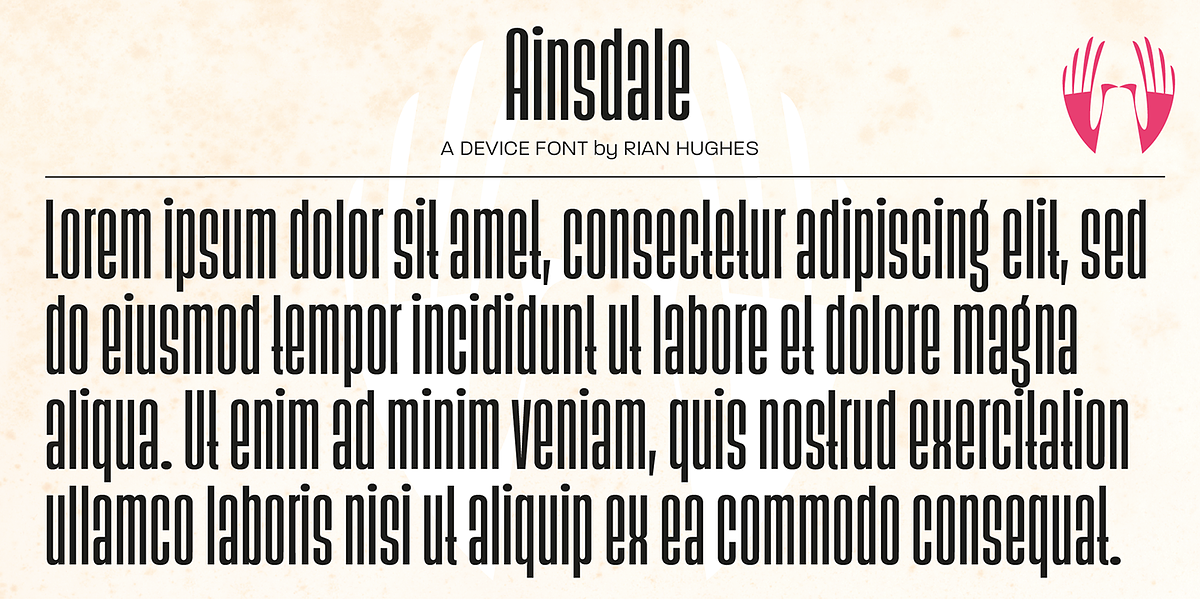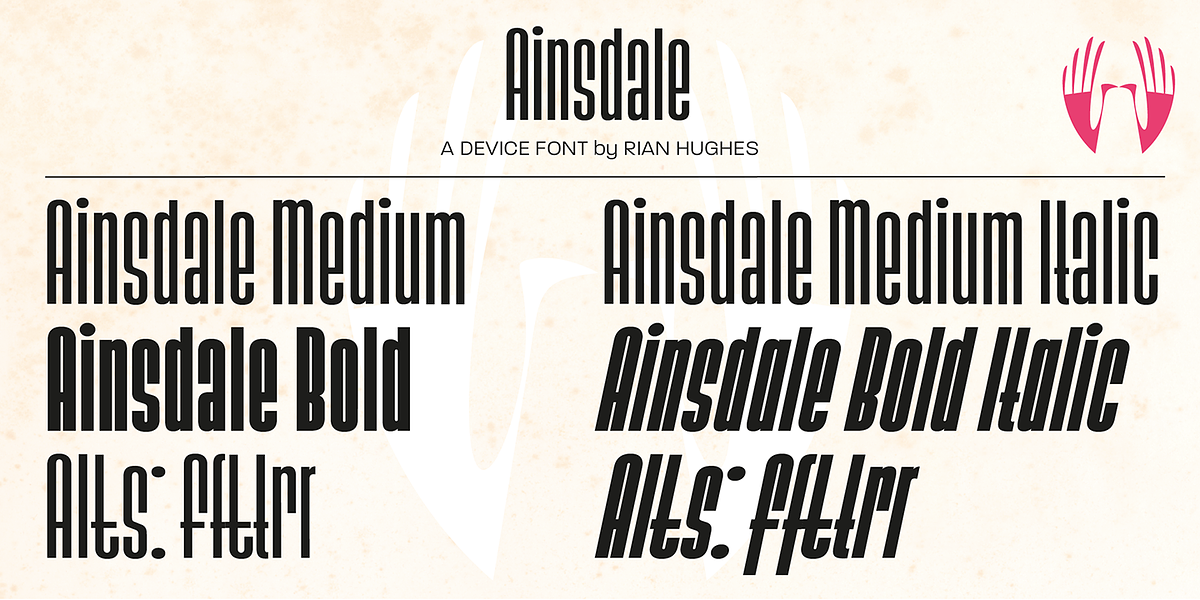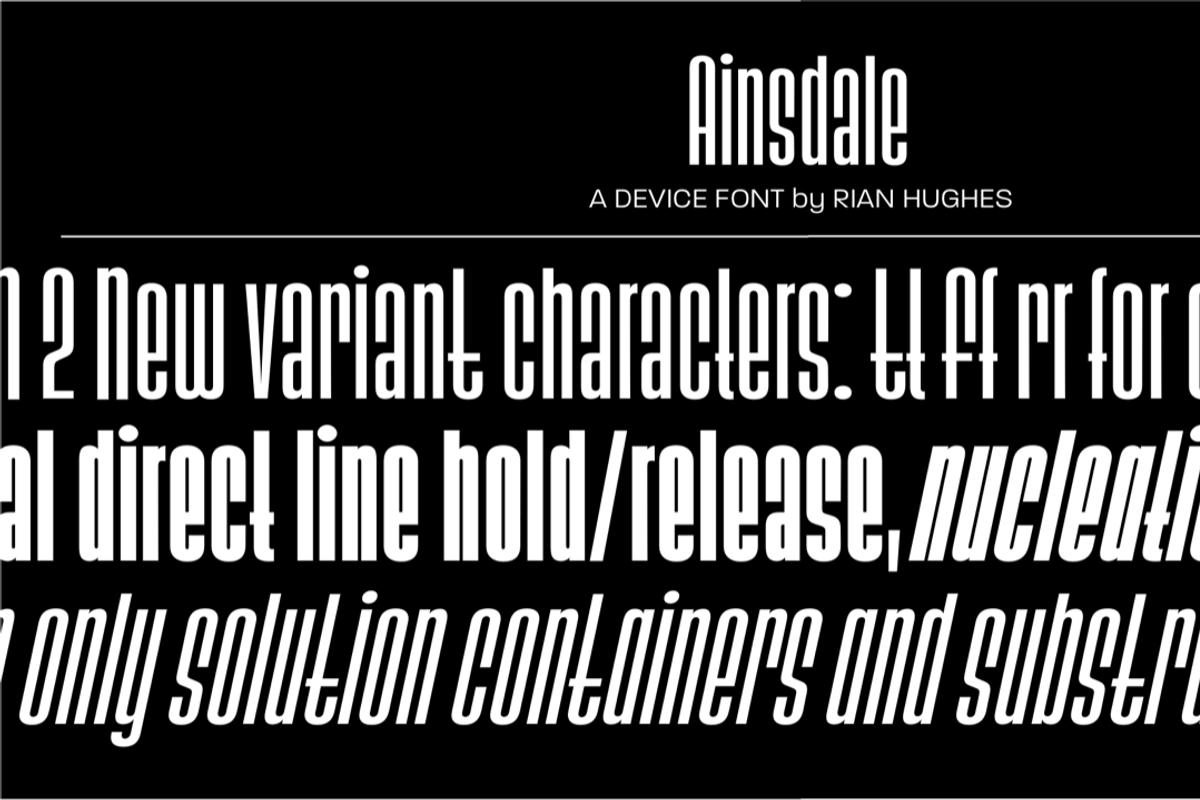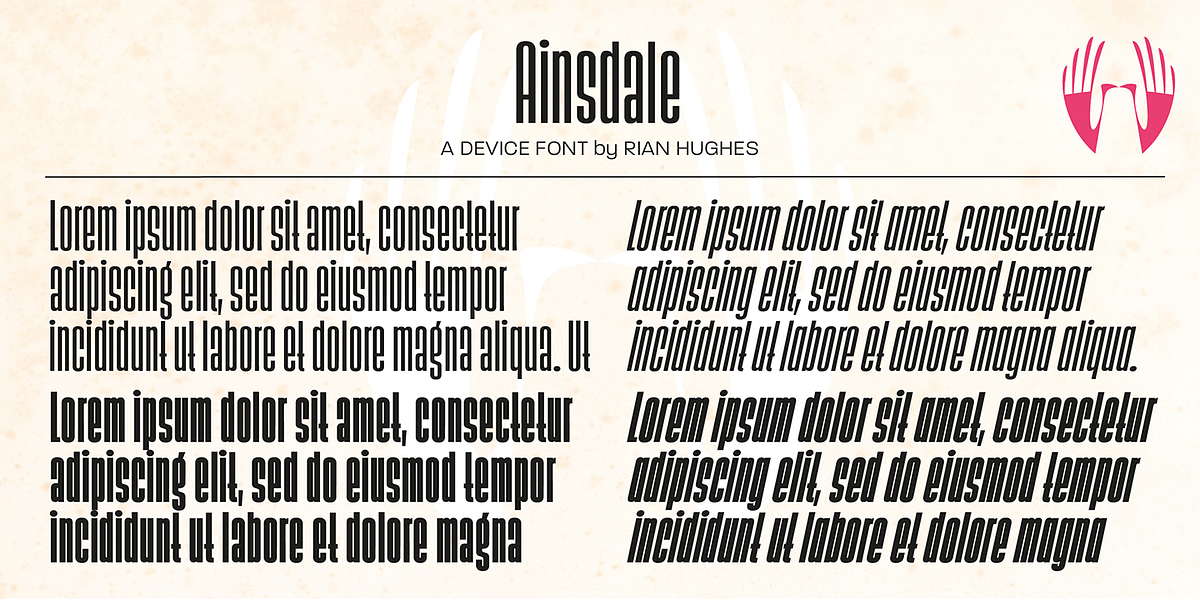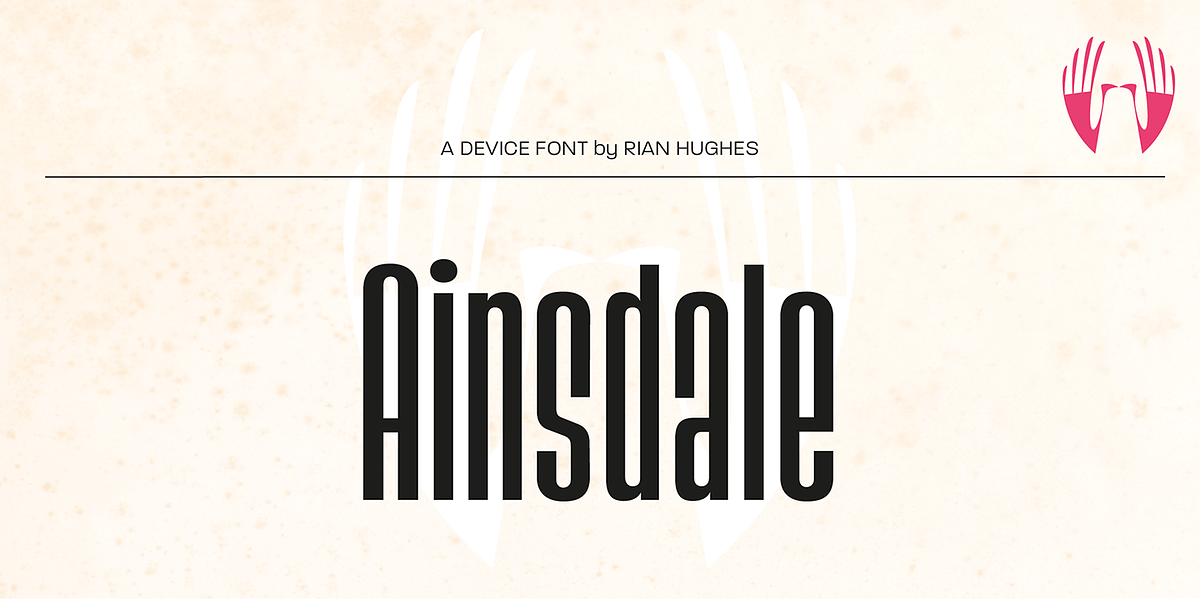
Ainsdale
This font is a stylish and condensed sans-serif typeface. Its unique design makes it suitable for display purposes such as posters. The inclusion of alternate characters adds versatility to its application.